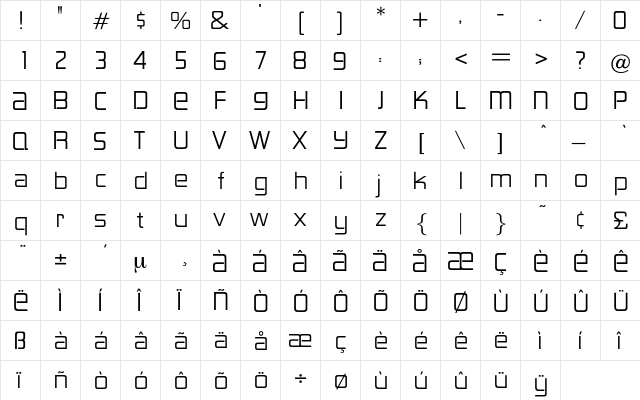
Marengo Regular
Design Context for Marengo Typeface
Marengo takes a measured approach to typography — its balanced proportions and neutral character make it a reliable workhorse for both digital and print work.
Pro Tip: Use Marengo in both headline and body roles to test its range before committing to a single application.